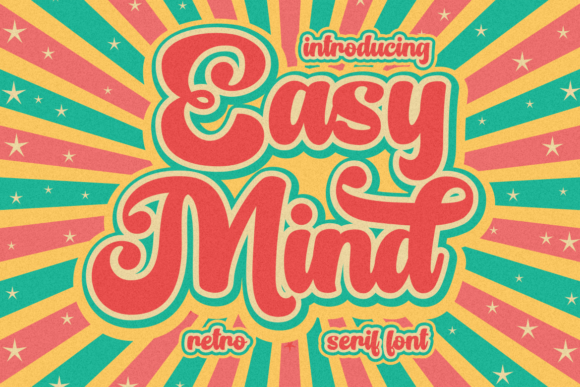
Introducing Easy Mind Font, the ultimate retro script typeface that will transport your designs to a bold and vintage world. Created by putracetol, this captivating font is perfect for users looking to add a touch of nostalgia and timeless charm to their projects.
With its distinctive style, Easy Mind Font showcases the perfect blend of boldness and retro aesthetics. It is designed to make a lasting impression and captivate your audience. Whether you're working on logos, packaging, invitations, greeting cards, posters, magazines, titles, or business branding, this font will bring your designs to life with its unique and eye-catching appeal.
One of the standout features of Easy Mind Font is its extensive set of alternative characters. Each character offers a multitude of unique shapes and swashes, allowing you to add versatility and flair to your designs. Stand out from the crowd and create truly captivating visuals with the endless possibilities this font provides.
If you're looking to evoke a sense of nostalgia and create a classic touch, Easy Mind Font is the perfect choice. Its bold and retro style effortlessly channels the spirit of the past, giving your creative projects a distinctive and timeless edge. Capture the attention of your audience and leave a lasting impression with this font that oozes charm and elegance.